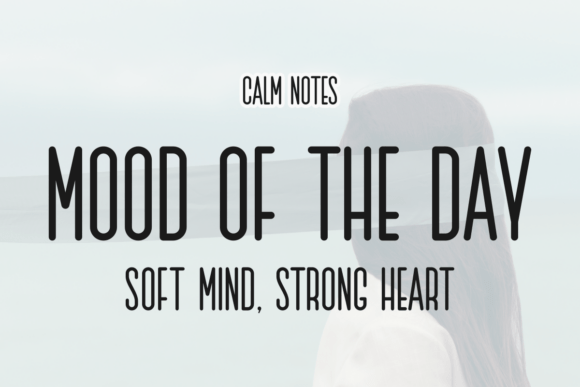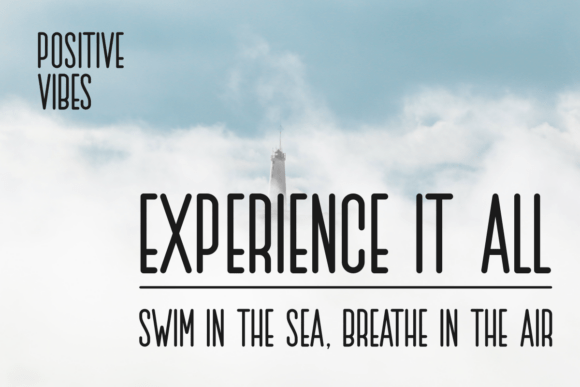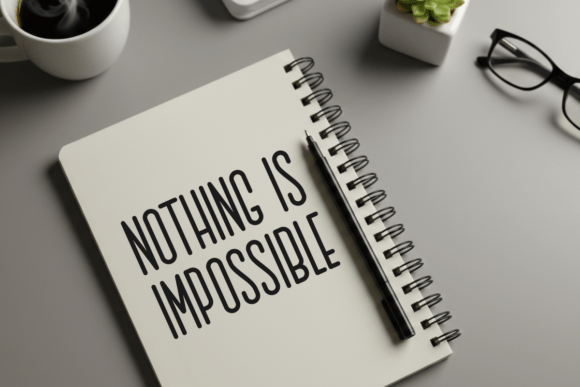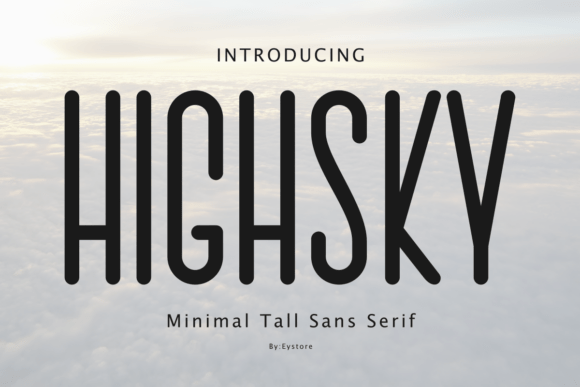
Introduction to Highsky Font
Reach for the clouds with HIGHSKY, a sleek and sophisticated tall sans serif designed for high-impact visual storytelling.
The HIGHSKY font features elongated, condensed letterforms that command attention while maintaining a clean, modern aesthetic It is the ultimate tool for editorial layouts, cinematic titles, and luxury branding where space is at a premium but style is mandatory.
Key Features of Highsky Font